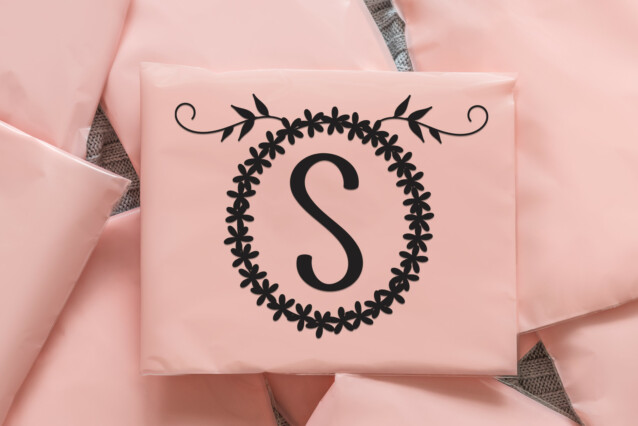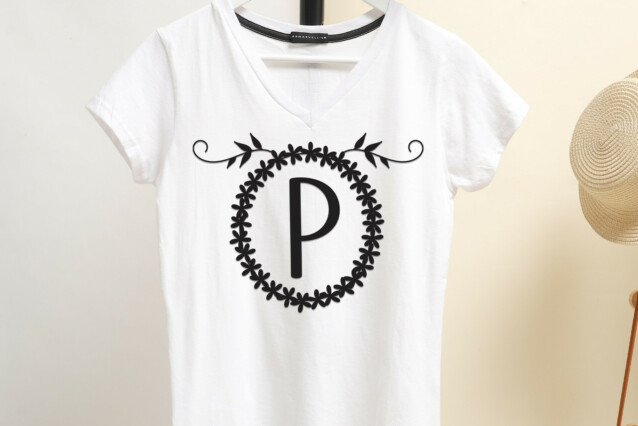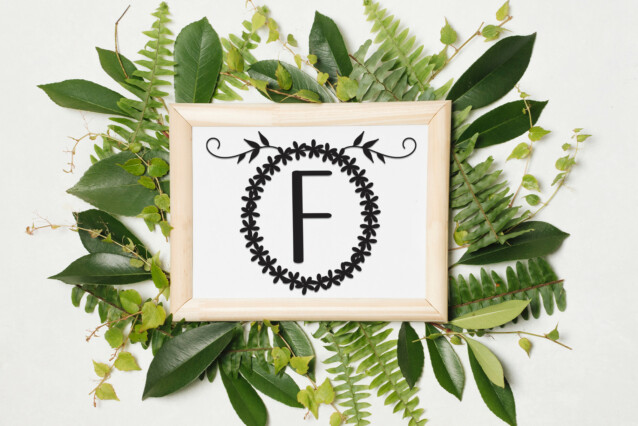
Wedding Monogram Display Font
Wedding Monogram Display Font is a gorgeous decorative font, that fits incredibly well to this time of the year. No matter the topic, this font will be an incredible asset to your fonts’ library, as it has the potential to elevate any creation.